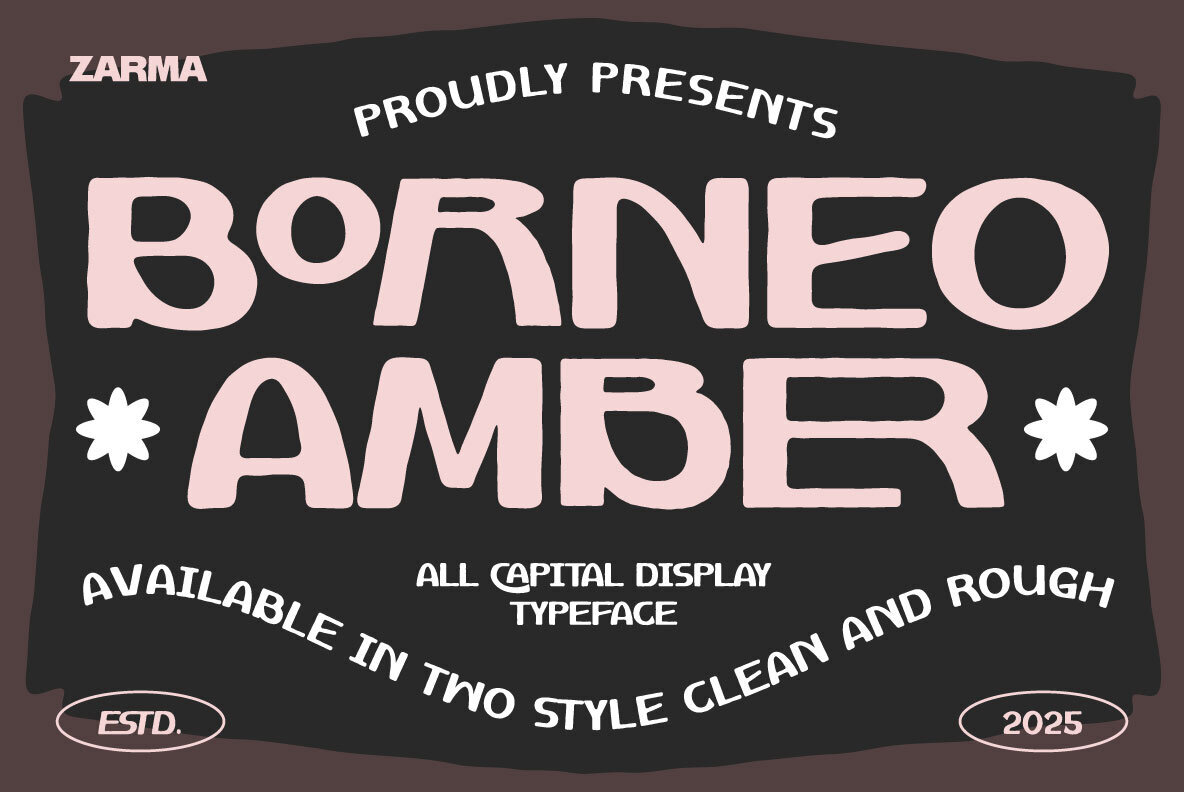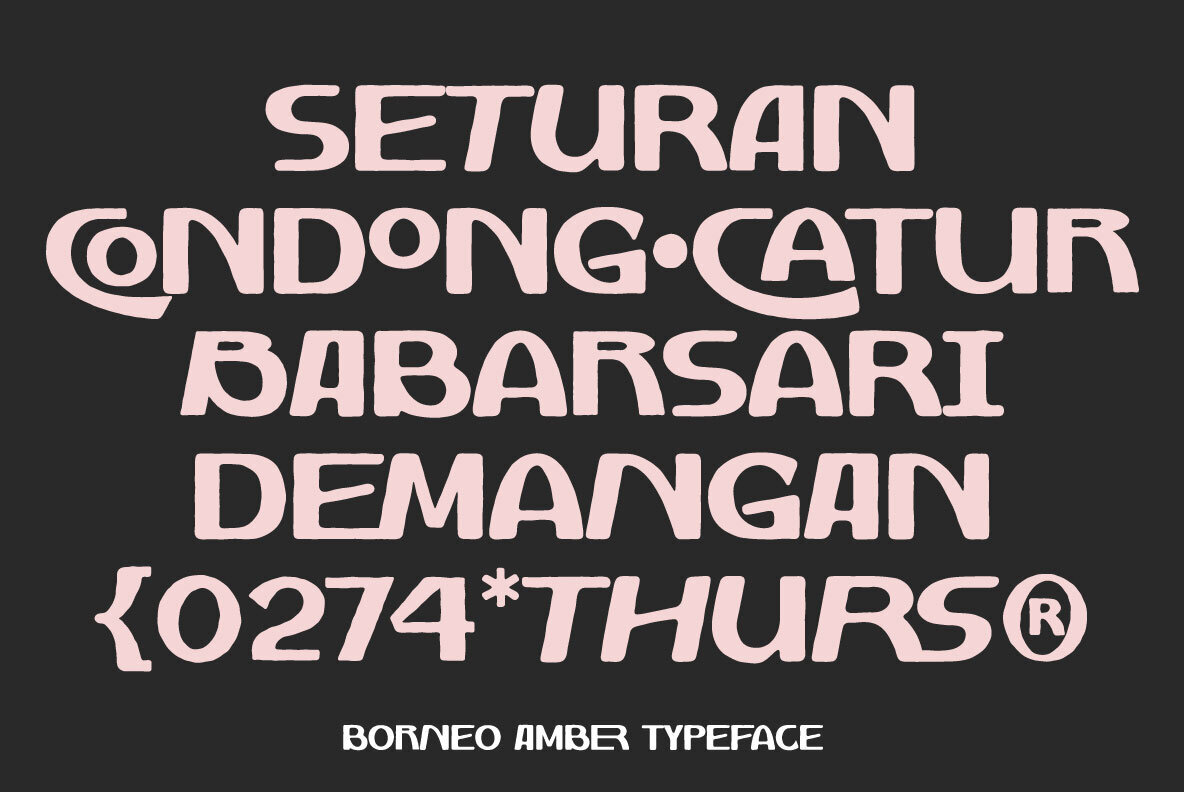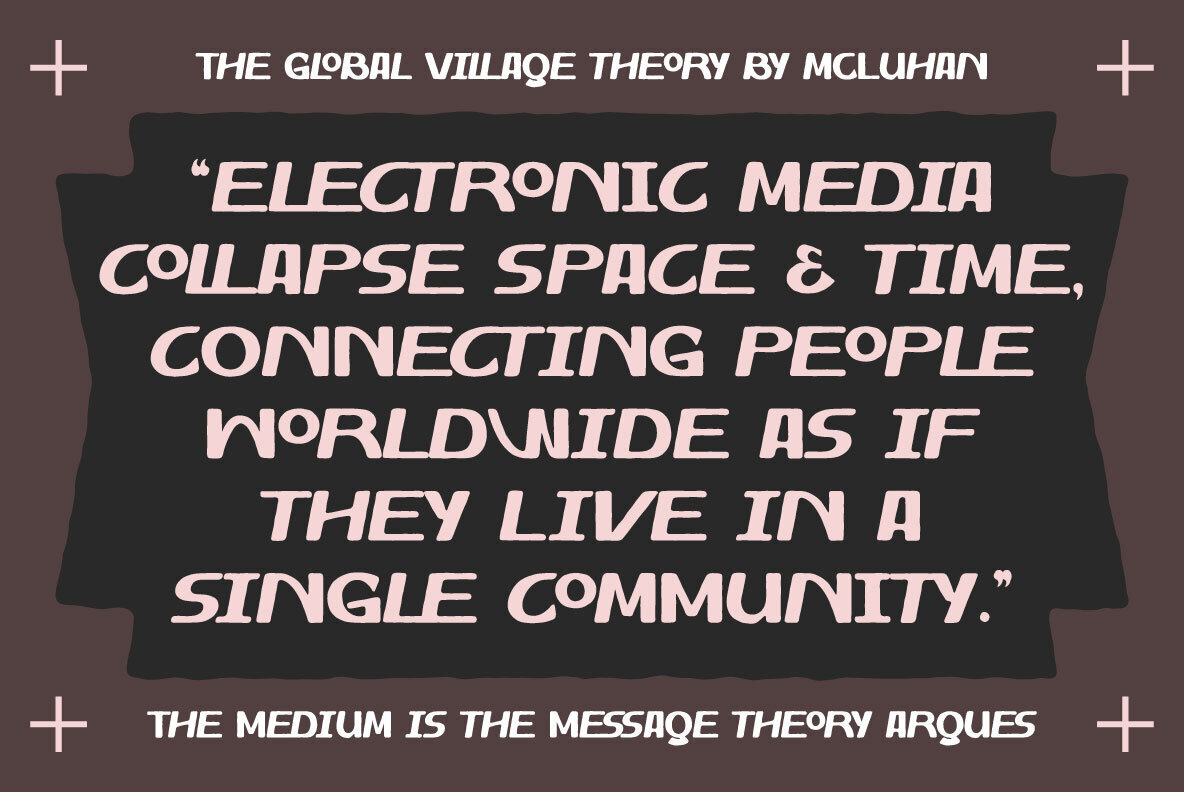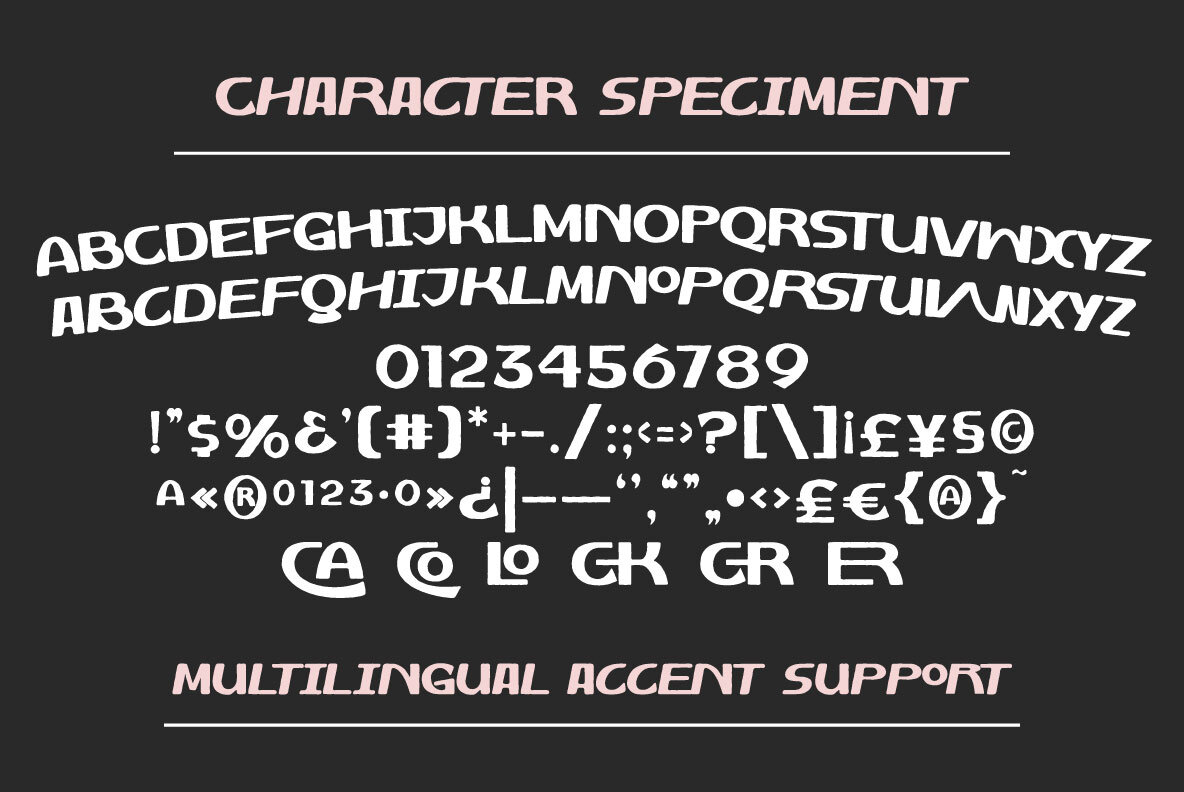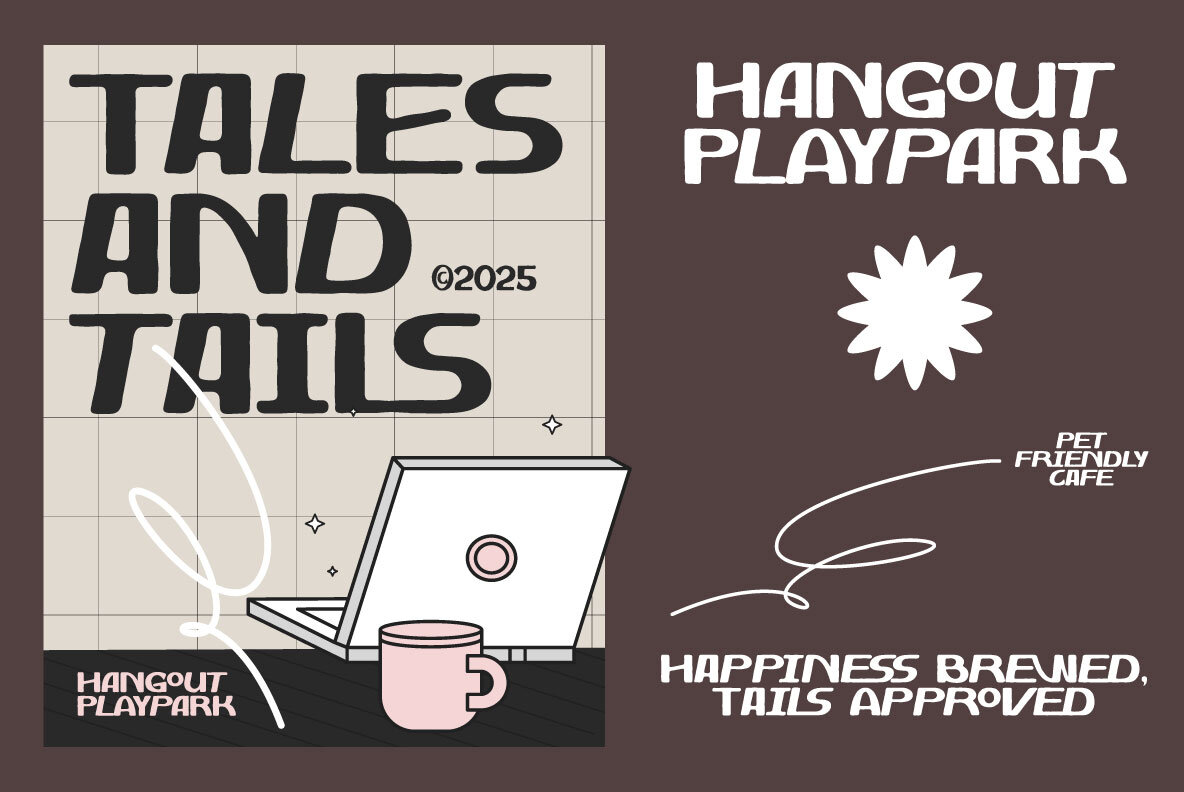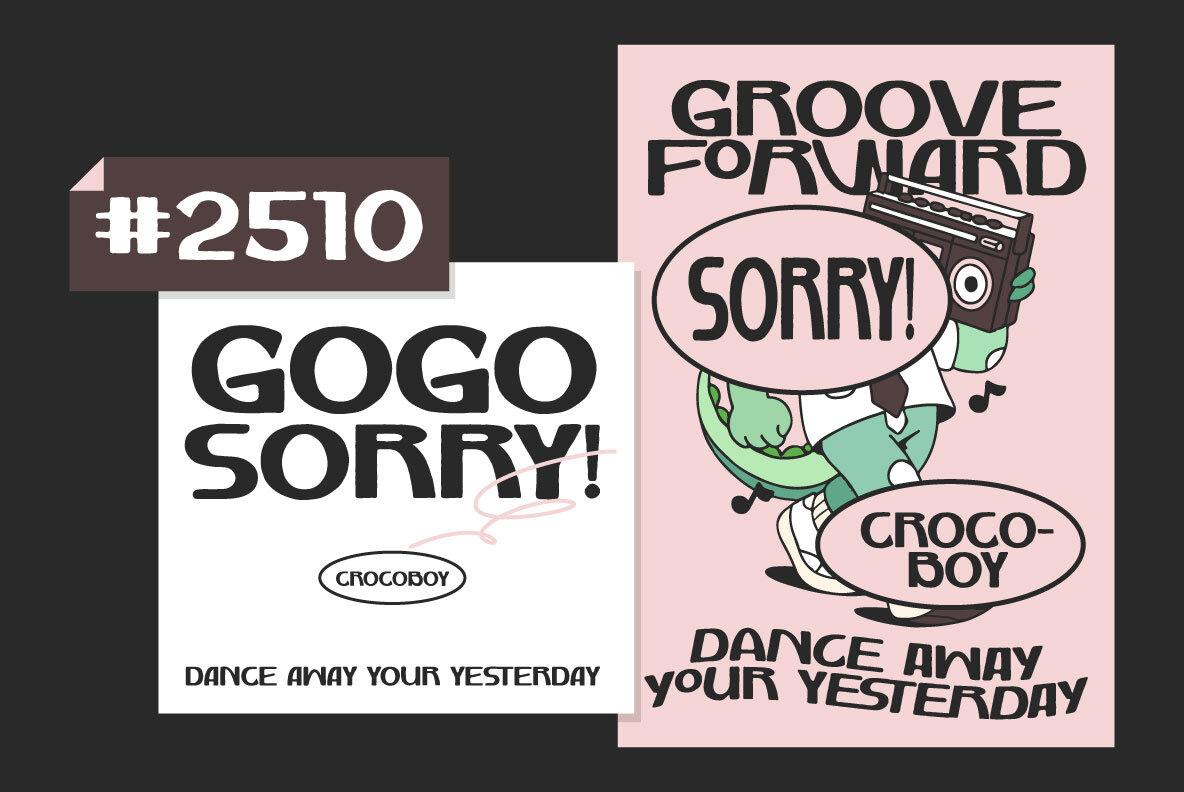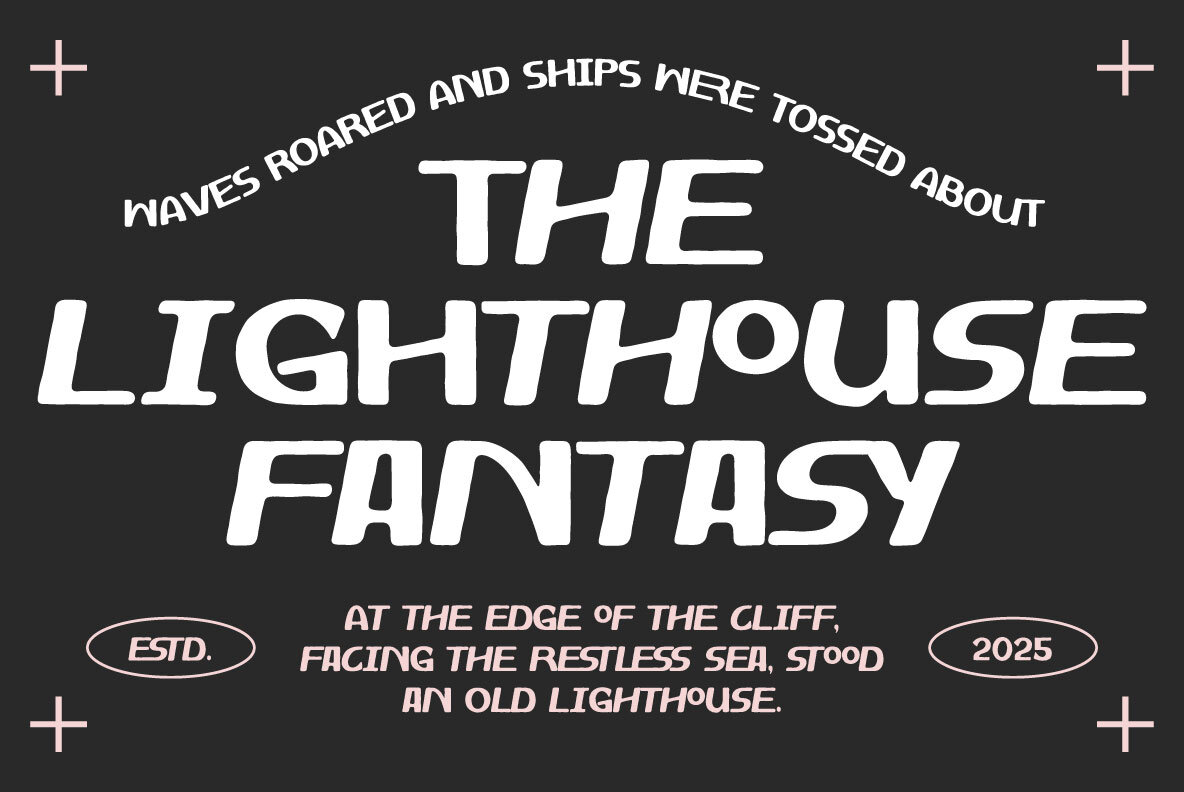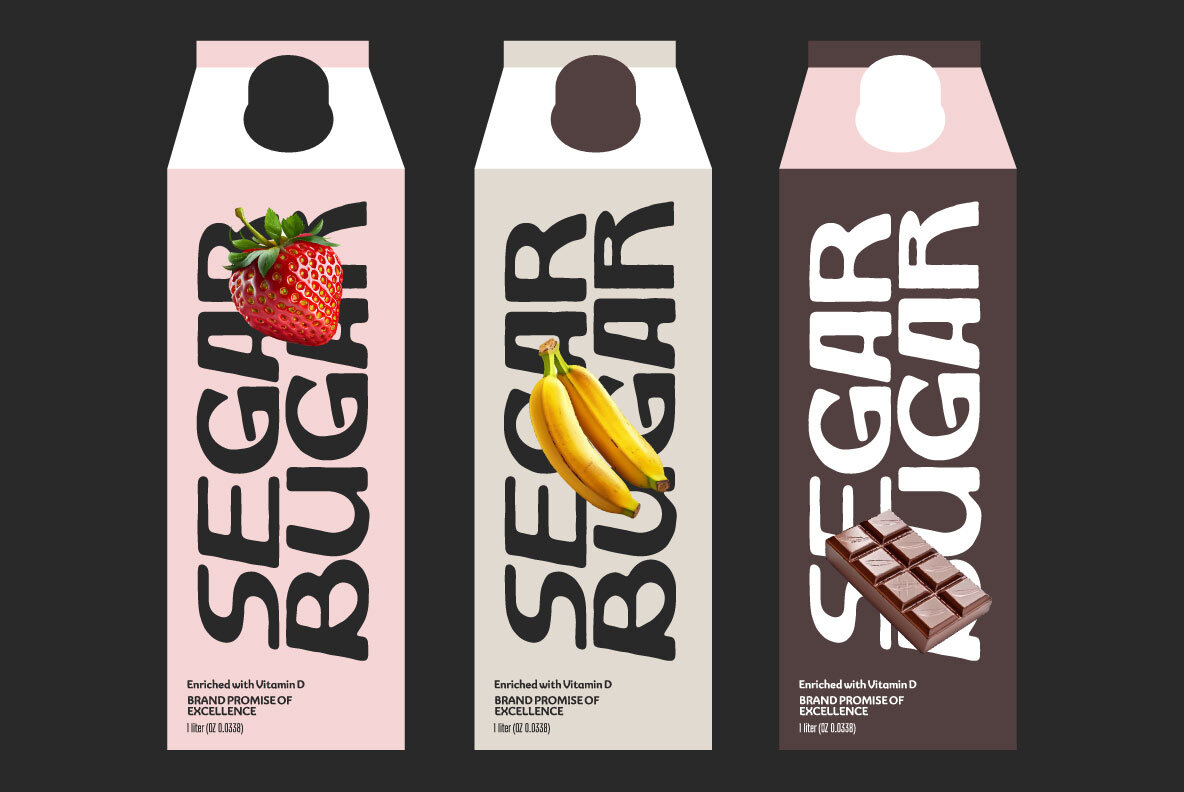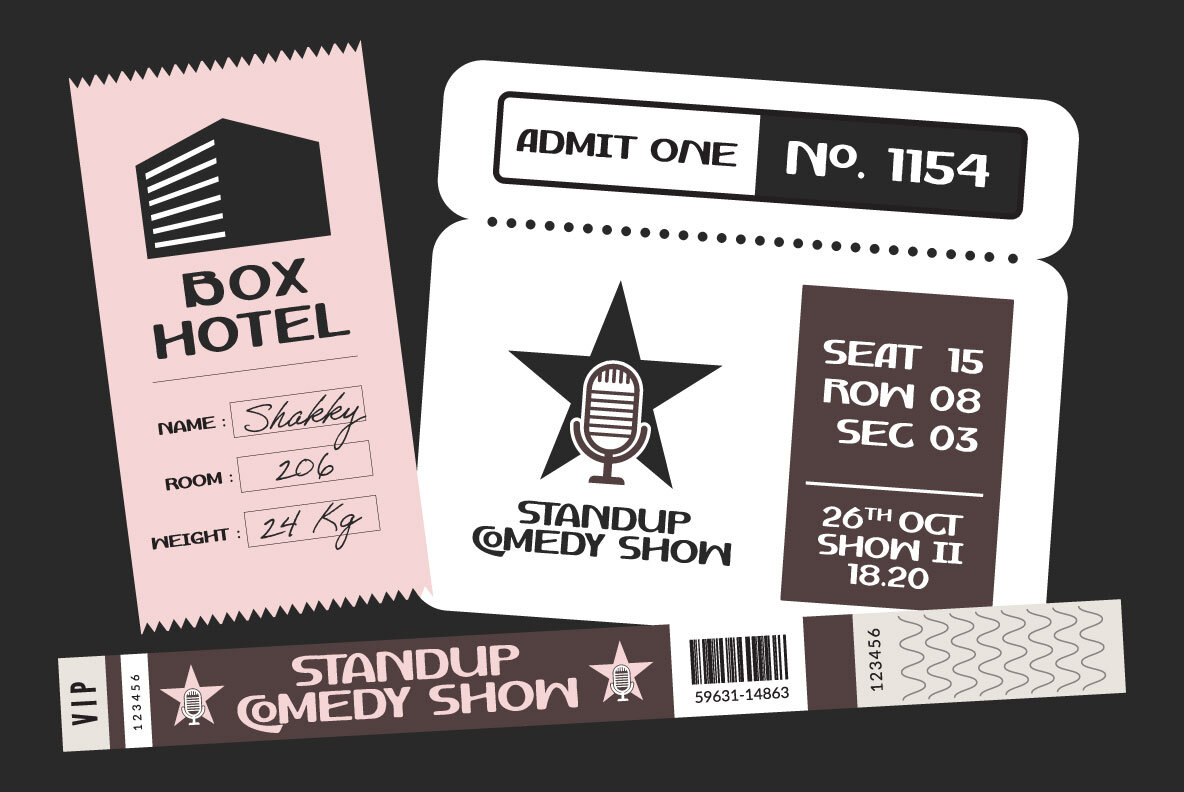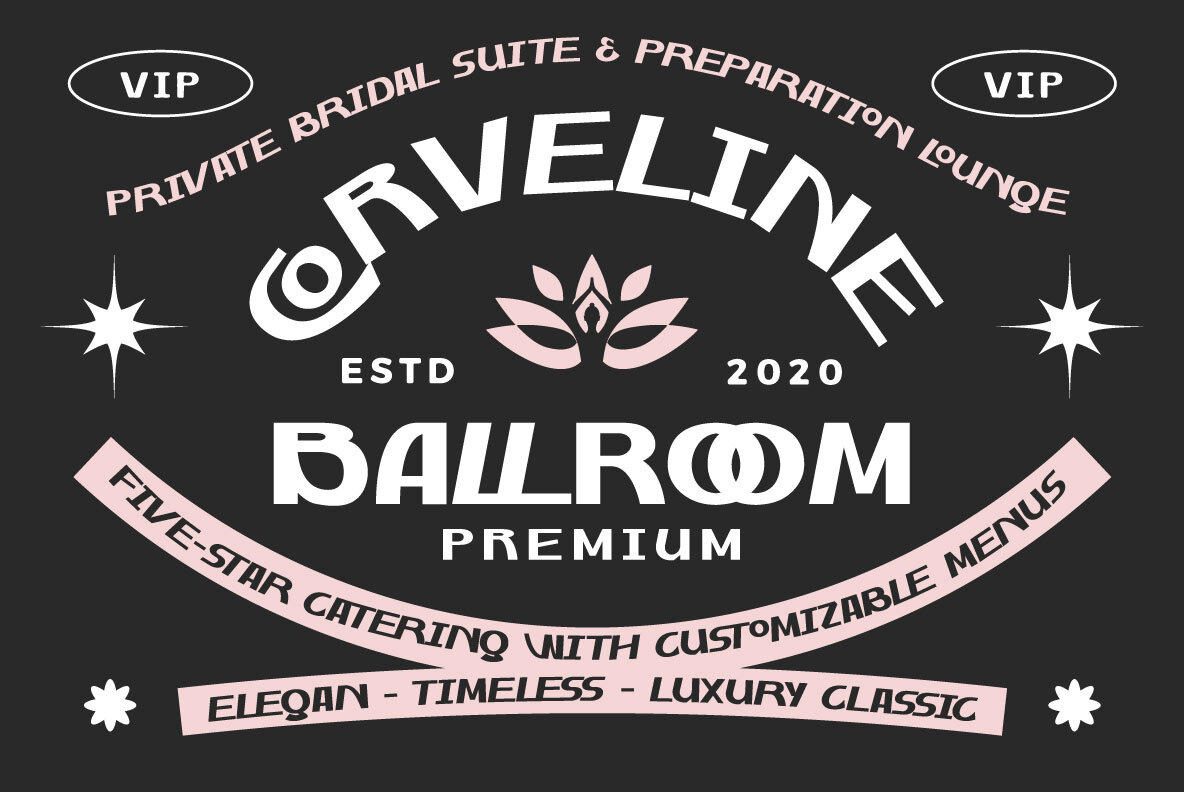
Borneo Amber Font
Borneo Amber Clean
Borneo Amber Rough
Borneo Amber caters to the discerning designer, merging the precise lines of modern typography with subtle vintage charm. The font's sturdy geometry, softened by handcrafted curves, crafts a visual experience that is both bold and expressive. Ideal for headlines, packaging, and signage, Borneo Amber exudes confidence while maintaining an approachable, nostalgic flair. Whether in coffee shop branding or editorial layouts, Borneo Amber encapsulates the timeless essence of design, reimagined for the contemporary world.Borneo Amber: A Harmonious Blend of Precision and Personality
Distinguishing Features